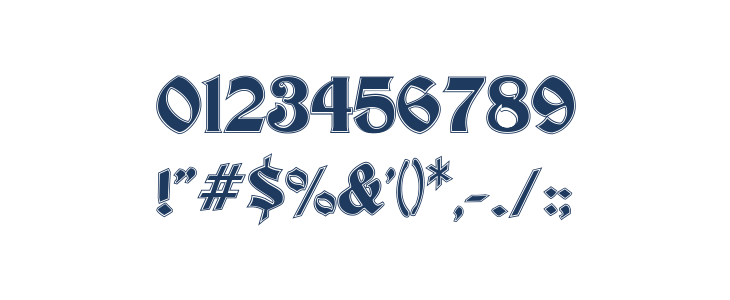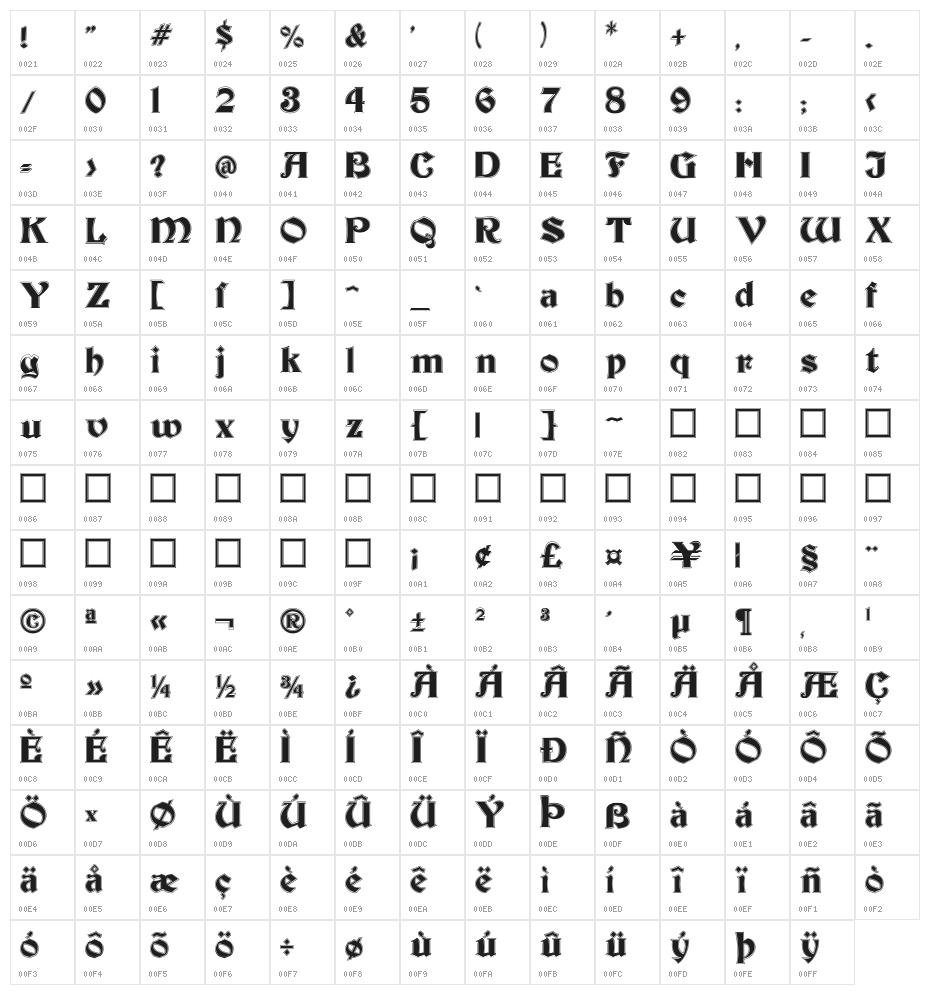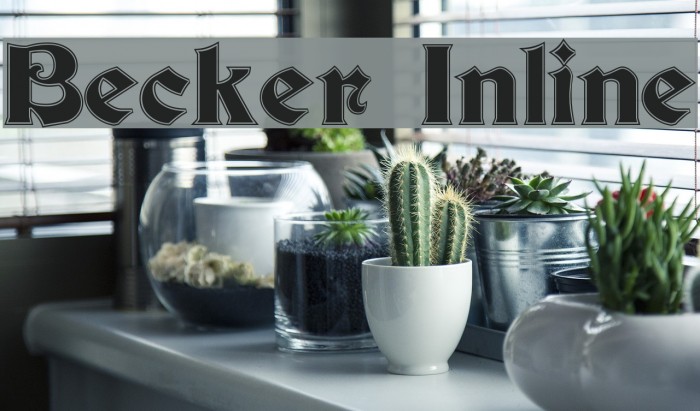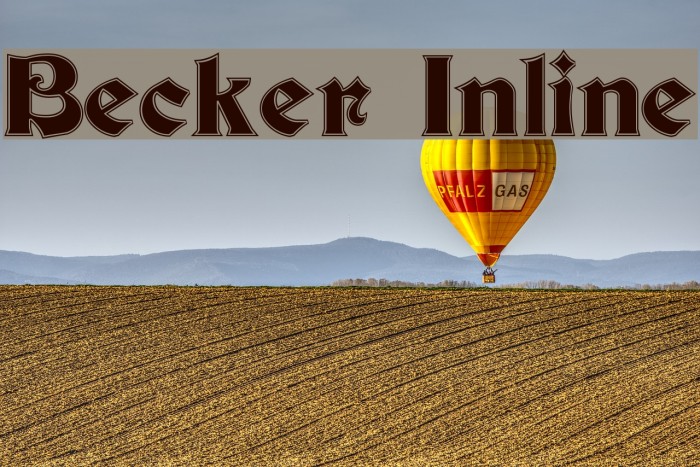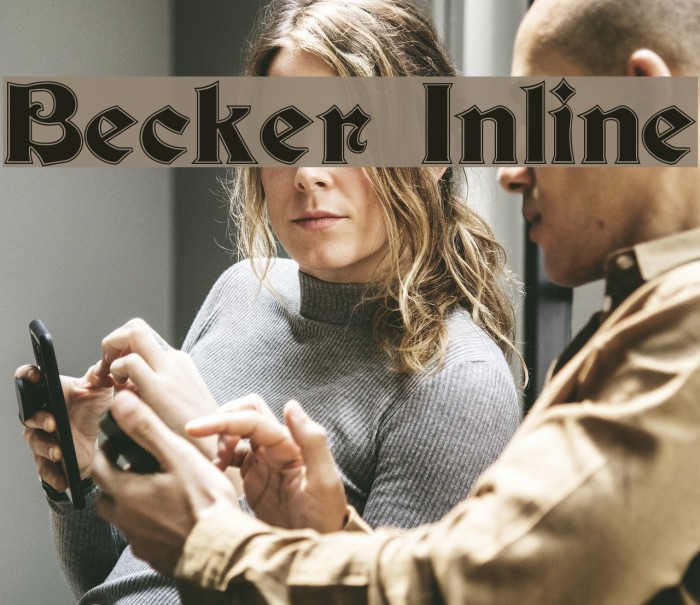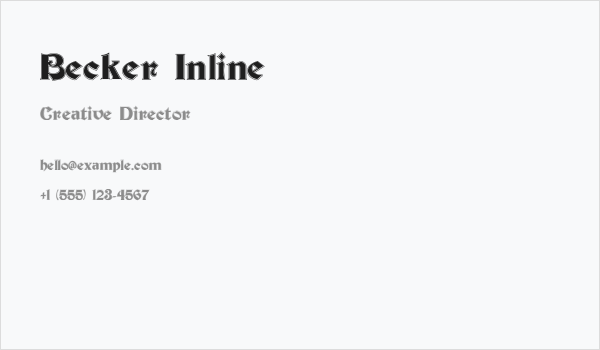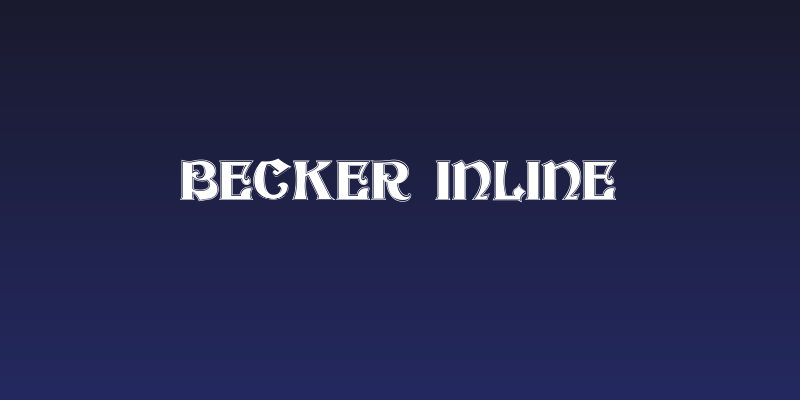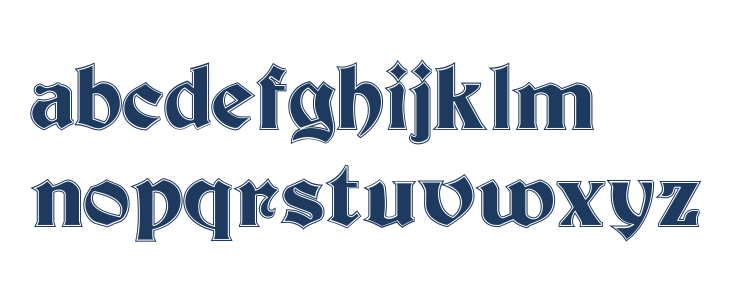
Becker Inline Font
Becker Inline Description
This font features a bold, decorative style with a distinct inline design that adds depth and dimension to each character. The uppercase and lowercase letters are crafted with sharp, angular serifs and a strong presence, making them stand out prominently. The numbers and special characters maintain the same boldness and intricate detailing, ensuring consistency across all glyphs. The inline effect creates a striking visual contrast, enhancing the font's overall aesthetic appeal. This font is ideal for projects that require a dramatic and eye-catching typeface.
| Proposed Projects | Suitable for headlines, posters, branding, and any design needing a bold statement. |